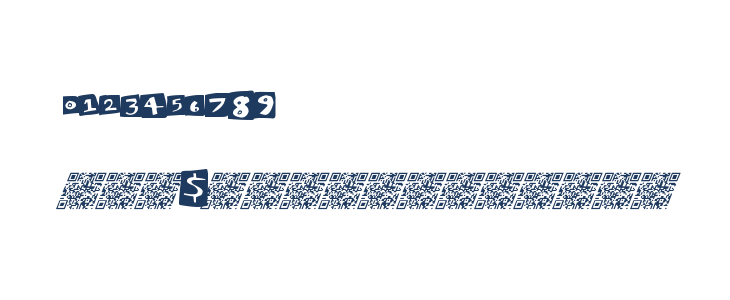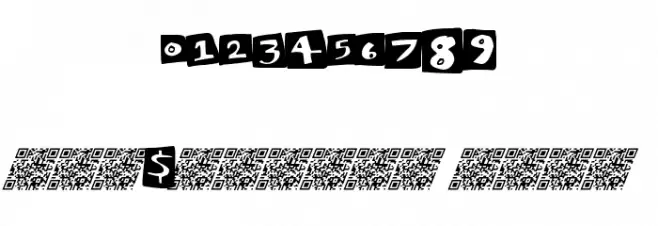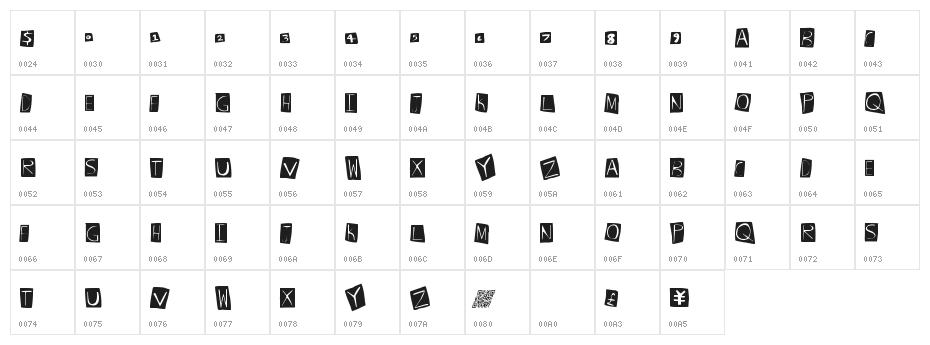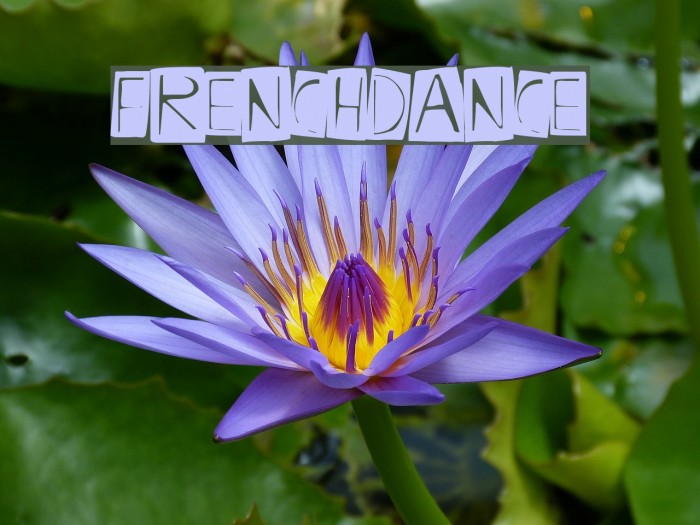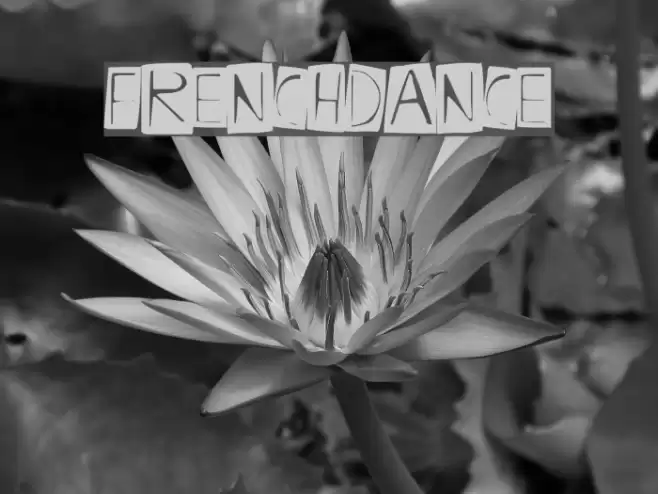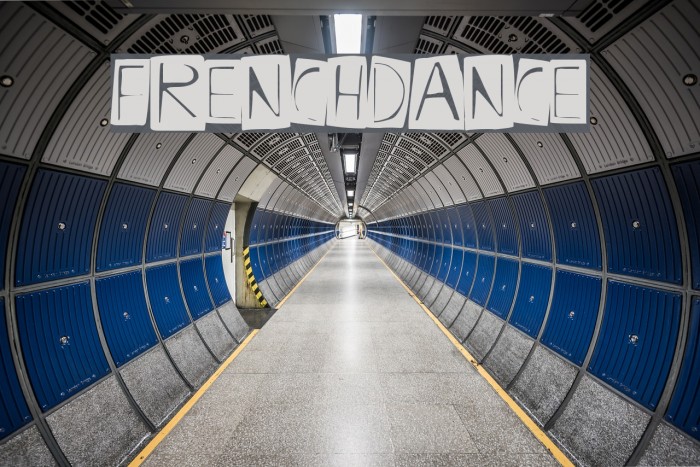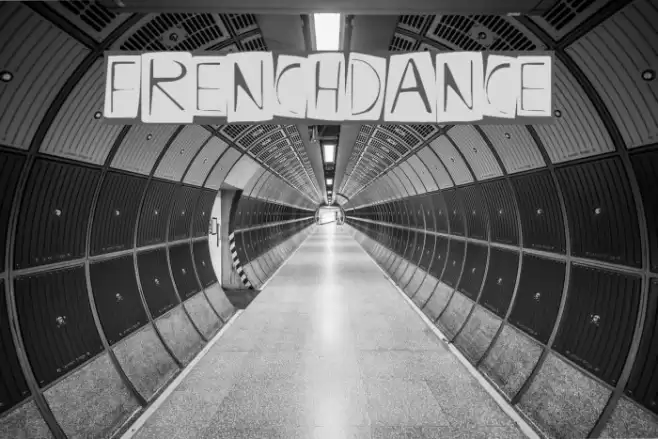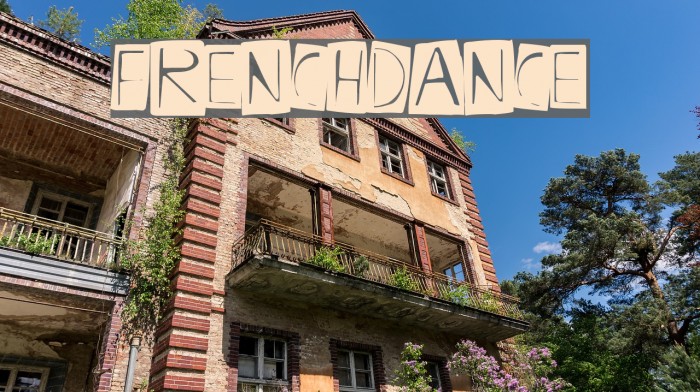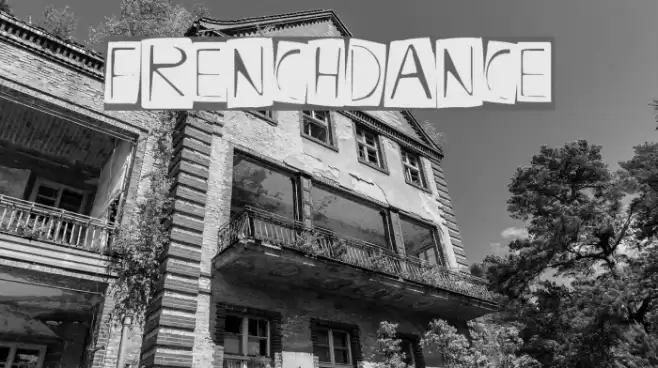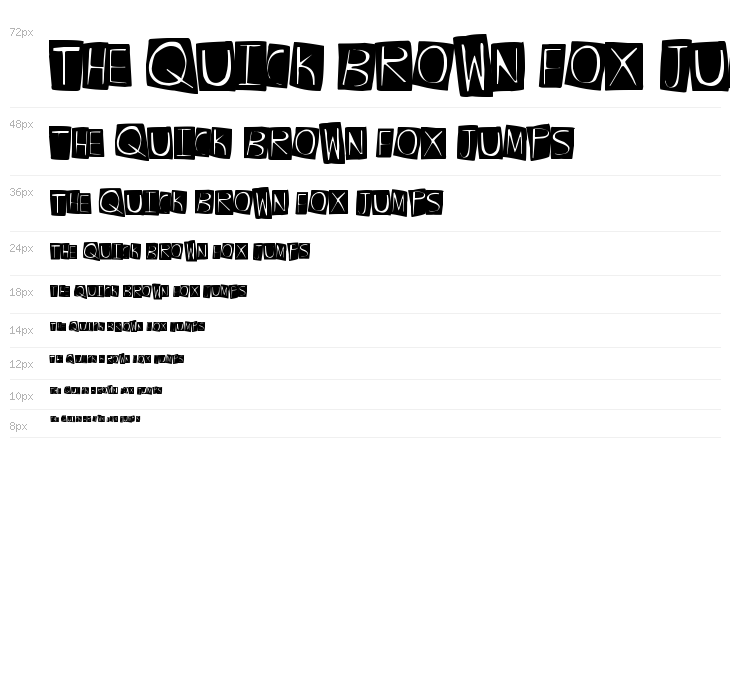
FrenchDance Font
FrenchDance Description
This font features a playful and bold style with each character enclosed in a slightly tilted, irregular box. The letters are uppercase and lowercase, with numbers and a few special characters. The design gives a sense of movement and energy, making it stand out with its unique, hand-drawn appearance. The characters are well-defined with thick strokes, providing a strong visual impact. The irregularity in the shapes adds a whimsical touch, making it suitable for creative and informal projects.
| Overall Style | Playful, Creative |
| Proposed Projects | Ideal for children's books, playful posters, party invitations, and creative branding projects. |